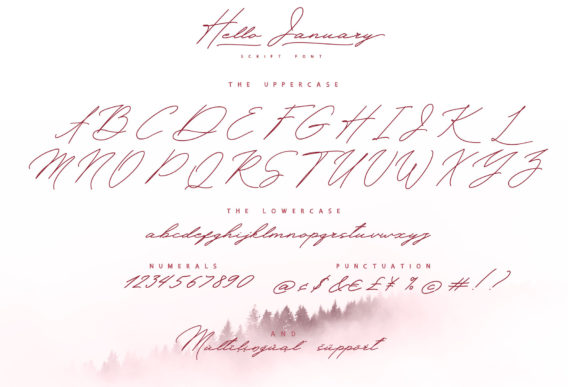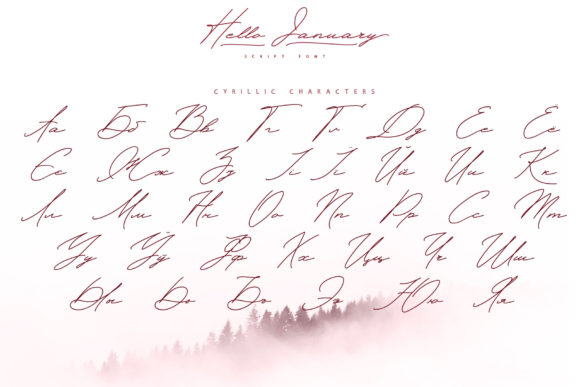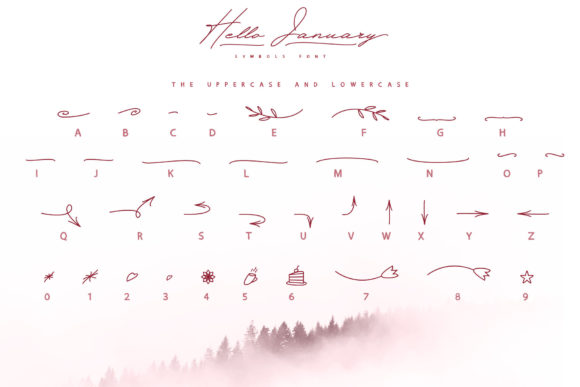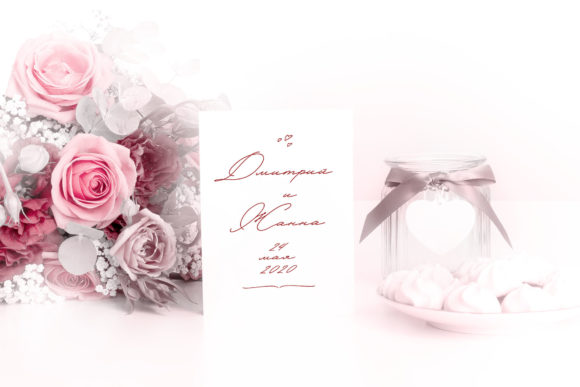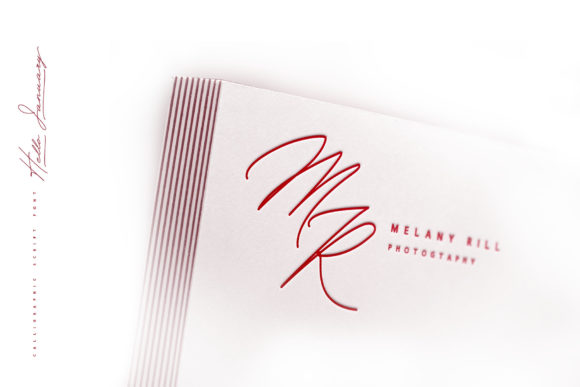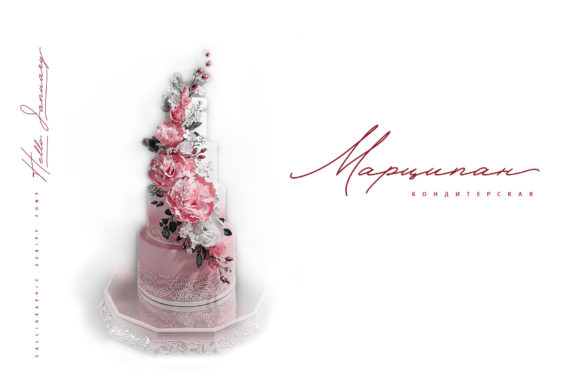
New Year, New Designs: Discover the Elegance of Hello January Font
As we bid farewell to the holiday season and welcome the fresh start of a new year, many creatives find themselves itching to refresh their designs and take their work to the next level. Whether you’re a seasoned designer or just starting out, there’s something special about the feeling of starting from scratch – and that’s exactly what the Hello January Font is designed to help you do.
This beautiful font is more than just a pretty face – it’s a powerful tool for designers looking to elevate their branding, wedding stationery, quotes, and social media posts. With its elegant script and stunning symbols, the Hello January Font is the perfect way to add a touch of sophistication and personality to your designs. Whether you’re working on a high-end project or just want to give your personal brand a makeover, this font is sure to impress.
Hello January Font Key Features
- Unique Characteristics: Hello January Font features a unique, modern script style with a mix of cursive and handwritten elements, making it perfect for creative and artistic projects.
- Customization Options: The font allows for easy customization, with features like ligatures, swashes, and alternates that can be used to add a personal touch to designs.
Hello January Font Review
Hello January Font is a delightful, modern script font designed for digital use. It’s perfect for adding a touch of elegance and sophistication to your digital projects. Here are some of its standout features: ✨
- Highly legible even at smaller font sizes
- Smooth, cursive lines that make it perfect for headings and titles
- Comes in a variety of weights and styles to suit your design needs
However, like any font, Hello January has its limitations: ⚠️
- May not be the best choice for body text, as it can be quite dense and overwhelming
- Some characters may not be as polished as others, which can affect the overall aesthetic
Overall, I think Hello January Font is a great addition to any designer’s toolkit. While it may not be perfect for every project, its unique charm and versatility make it a solid choice for anyone looking to add a touch of personality to their designs.
Getting the Most Out of Hello January Font
To get the most out of the Hello January font, try the following:
- Pair it with bold and italics for added emphasis.
- Use it in combination with bright and pastel colors for a playful look.
The Hello January font is perfect for:
- New Year’s resolutions and goal-setting materials.
- Summer and spring-themed designs.
- Women’s and children’s fashion branding.
Alternatives to Hello January Font for Designers
Great Vibes Font is a beautiful, elegant script font ideal for wedding invitations, quotes, and other romantic designs. It’s perfect for creating a whimsical and dreamy atmosphere. Unlike Hello January Font, Great Vibes Font is more delicate and refined, making it suitable for formal events and special occasions.
Carolyna Pro Font is a modern, sophisticated script font suitable for fashion, beauty, and lifestyle brands. It’s perfect for creating a luxurious and high-end feel. Compared to Hello January Font, Carolyna Pro Font is more versatile and can be used for a wide range of designs, from fashion to food and travel.
Alex Brush Font is a elegant, handwritten font ideal for quotes, poetry, and other creative projects. It’s perfect for creating a warm and inviting atmosphere. Unlike Hello January Font, Alex Brush Font is more subtle and understated, making it suitable for designs that require a touch of sophistication and refinement.